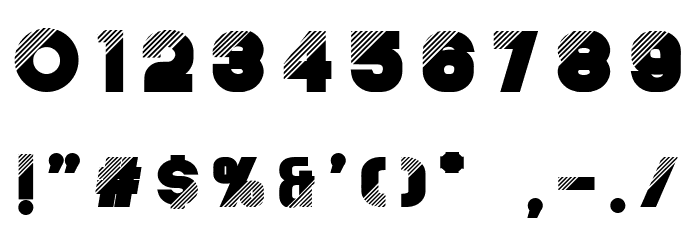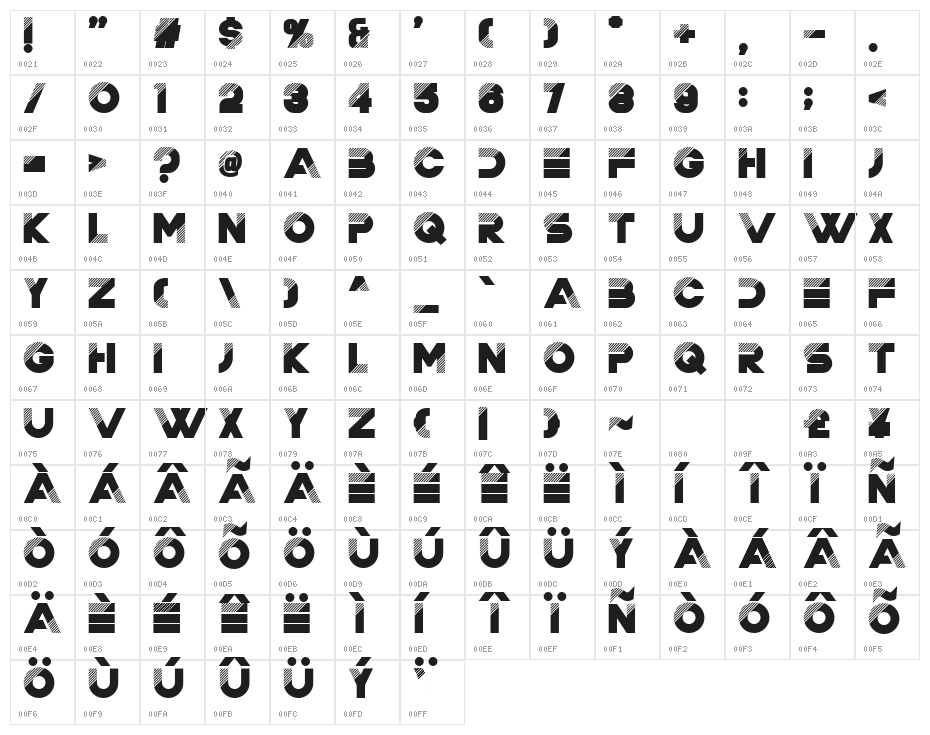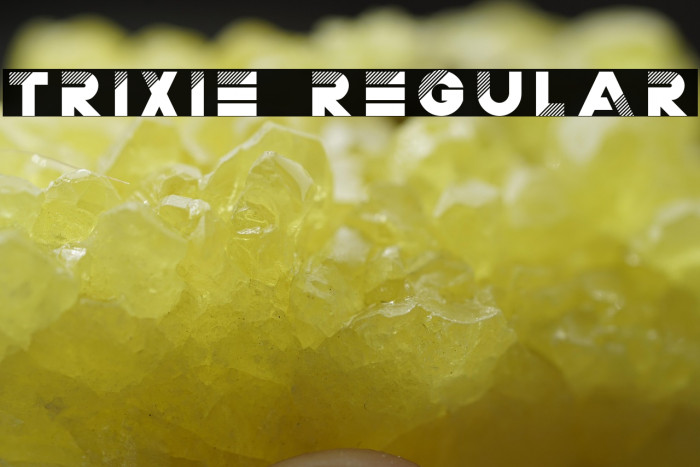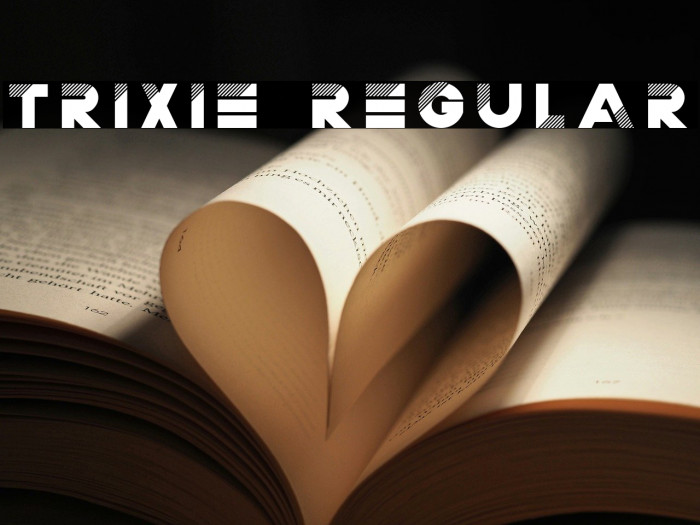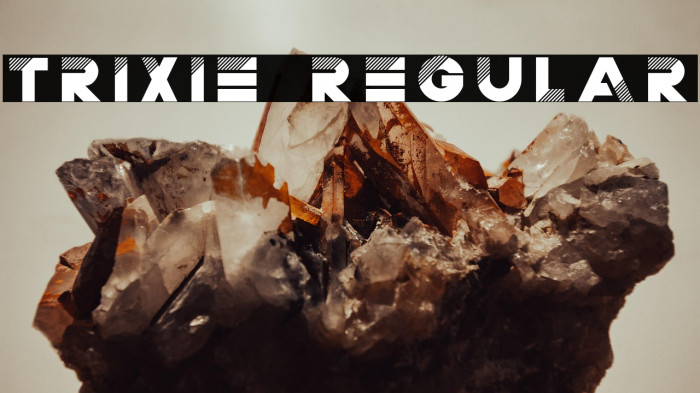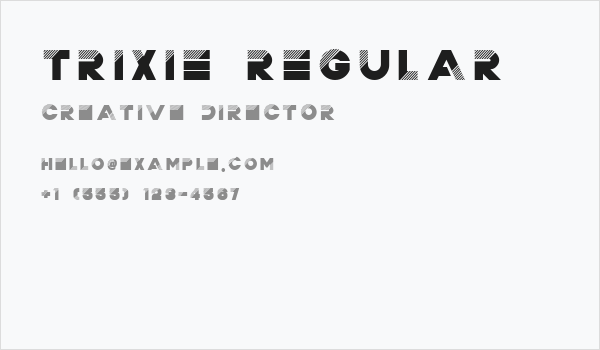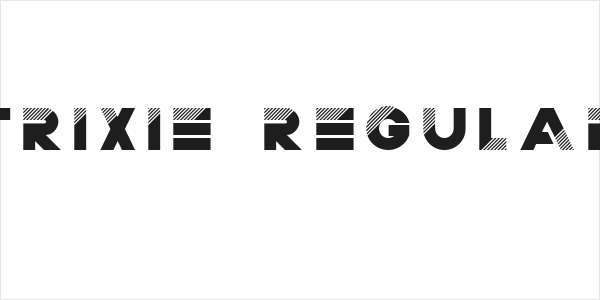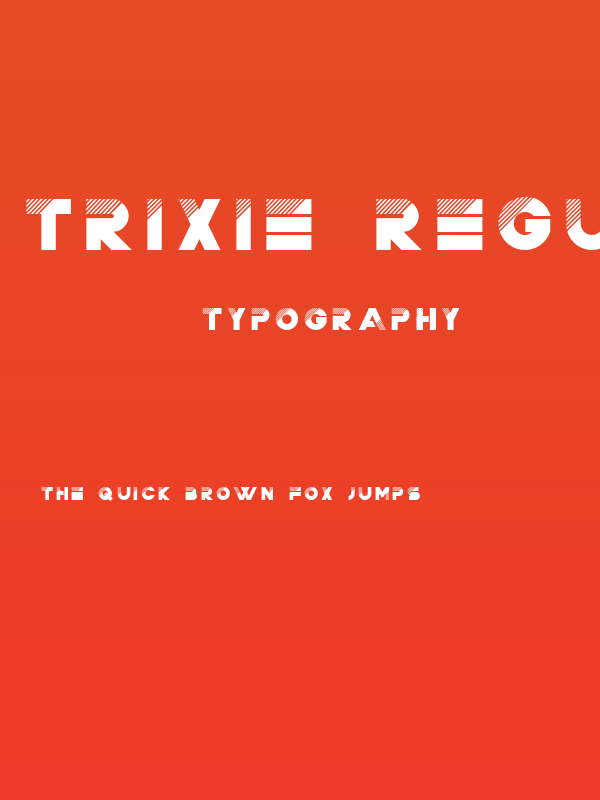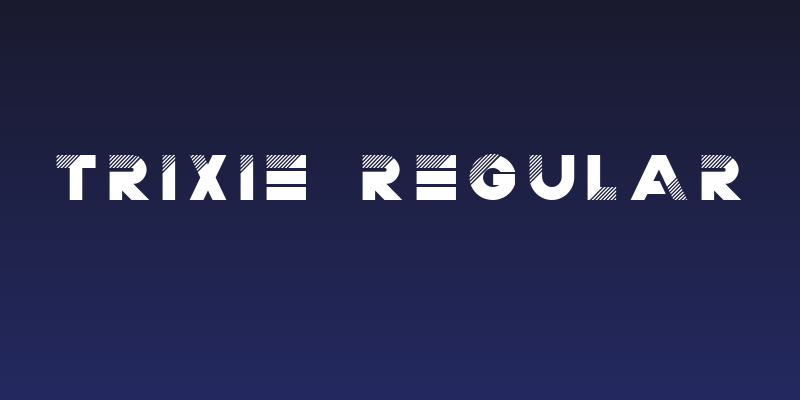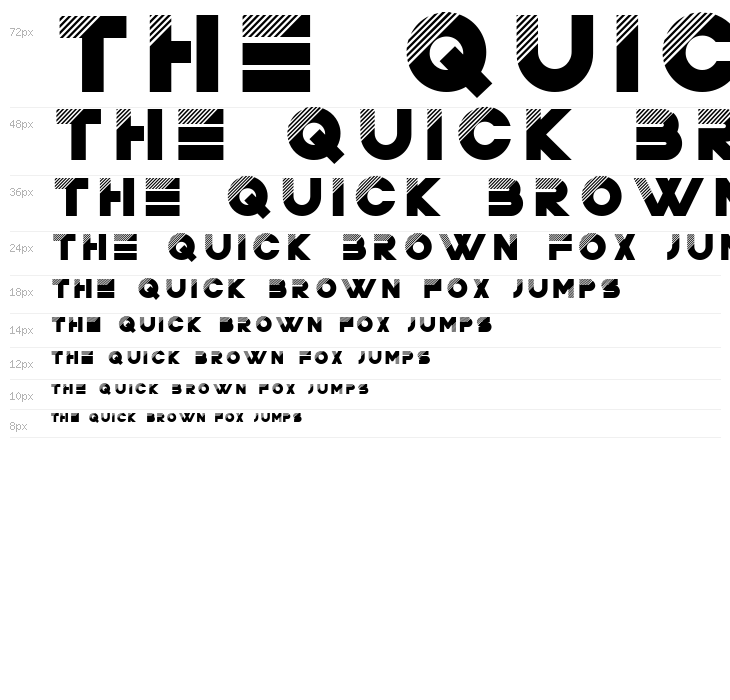
Trixie Regular Font
Trixie Regular Description
This font features a bold, geometric style with a distinct diagonal line pattern within each character. The uppercase letters are solid and robust, with sharp angles and a modern aesthetic. The lowercase letters maintain the same boldness, ensuring consistency across the typeface. Numbers and special characters follow the same design principles, making them easily recognizable and cohesive with the overall style. The font's unique pattern adds a dynamic and eye-catching element, making it suitable for projects that require a strong visual impact.
| Proposed Projects | Ideal for branding, posters, and headlines where a strong visual presence is needed. |